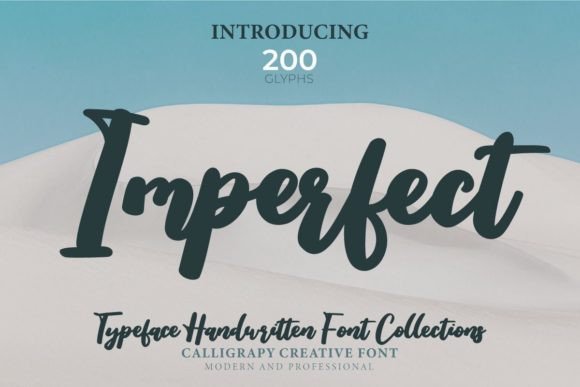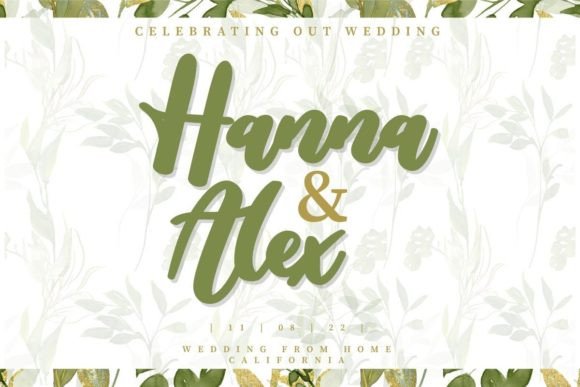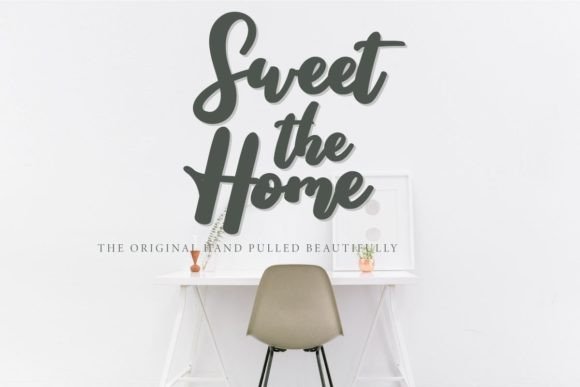
About Imperfect Font
“The ‘Imperfect’ font is a beautiful handwritten typeface that adds a touch of elegance to your creative projects. Its unique charm and artistic imperfections make it a perfect choice for a wide range of applications. Whether you are designing wall displays, wedding invitations, social media posts, logos, advertisements, product packaging, product designs, labels, photography, watermarks, invitations, stationery, or any project that requires impressive typography, ‘Imperfect’ delivers exceptional results.
This font is particularly well-suited for wall displays, where it can transform any space into a cozy and inviting environment. When used in wedding invitations, it enhances the romantic atmosphere and captivates the recipients with its graceful appearance. In social media posts and logos, ‘Imperfect’ provides a personal and distinctive touch, ensuring that your brand or project stands out effortlessly.
Moreover, this versatile font lends itself beautifully to advertisements, catching the viewer’s attention with its handcrafted allure. In product packaging and designs, it elevates the visual appeal, making your products more attractive to potential customers. Labels adorned with the ‘Imperfect’ font exude a handmade, bespoke feel, perfect for artisanal products.
Photographers can use this font as a watermark to protect their work while adding a signature style to their images. Invitations, whether for formal events or casual gatherings, acquire a touch of sophistication and warmth when ‘Imperfect’ is used. Even stationery items, such as letterheads and business cards, benefit from this font, making your correspondence memorable and impressive.
In essence, ‘Imperfect’ is more than just a font; it is a design asset that enhances the visual appeal of any project. Its versatility, coupled with its innate beauty, makes it a must-have for designers, photographers, and creative professionals seeking to create captivating and memorable visuals. Embrace the charm of ‘Imperfect’ and elevate your designs to new heights.”